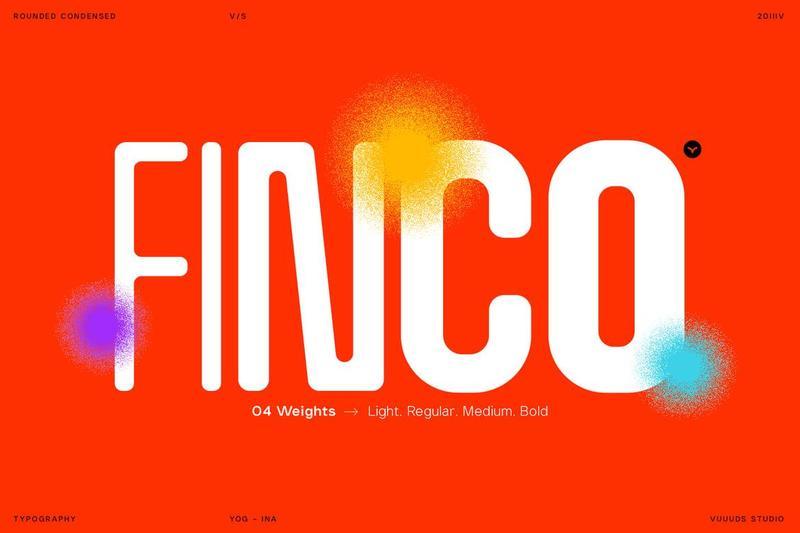
Finco 3JNWXGF
Meet Finco, a rounded condensed font thats as versatile as it is sleek. Packing four different weights, it easily adapts to whatever vibe your project demands. Whether you’re crafting a modern logo, building out a fresh branding identity, making poster headers pop, or designing clean layouts for websites and mobile apps, Finco handles it all with effortless style.